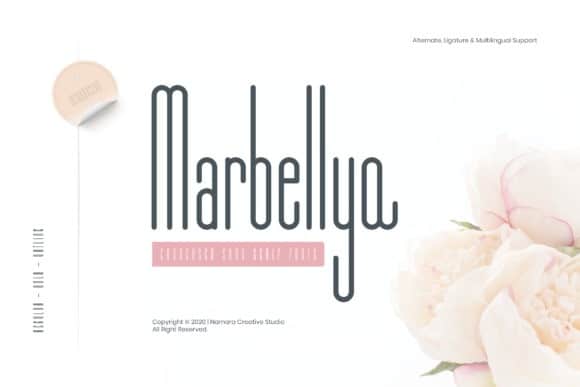
Marbellya Sans Serif Font
Marbellya Font is a Minimalist Modern Elegant Sans Serif typeface with beautiful ligatures, tons of special alternative glyphs, and multilingual support. It’s a very versatile font that works great in large and small sizes.
Marbellya is perfect for branding projects, Logo design, Clothing Branding, product packaging, magazine headers, or simply as a stylish text overlay to any background image. It’s perfect for headlines, editorial uses, and advertising projects. Makes beautiful luxe logos and wedding invitations, too.